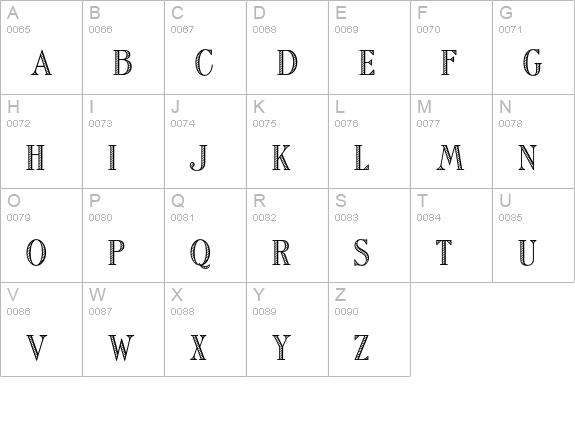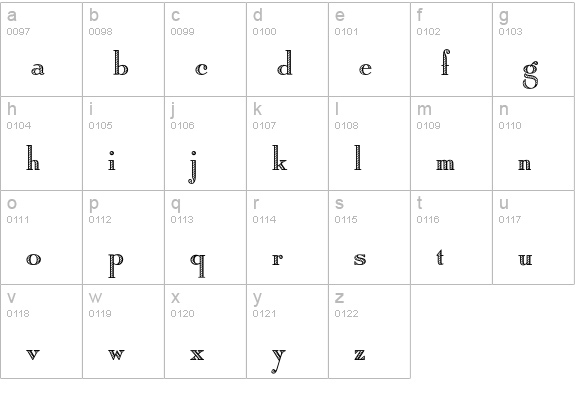
OPTIRomanC-Shaded Font Details
OPTIRomanC-Shaded font is a stunning display typeface that effortlessly blends sophistication with a touch of playfulness. Its bold and stylish design makes it perfect for eye-catching headlines, titles, and branding projects. The unique shading effect adds depth and dimension to each letter, creating a visually striking appearance that is sure to draw attention. This versatile font is suitable for a wide range of design projects, from posters and packaging to logos and social media graphics. Its clean lines and modern aesthetic give it a contemporary feel that will enhance any creative endeavor. And the best part? OPTIRomanC-Shaded font is completely free to download at FontsMarket.com! So go ahead and add this beautiful typeface to your collection today and elevate your designs with its charm and elegance.